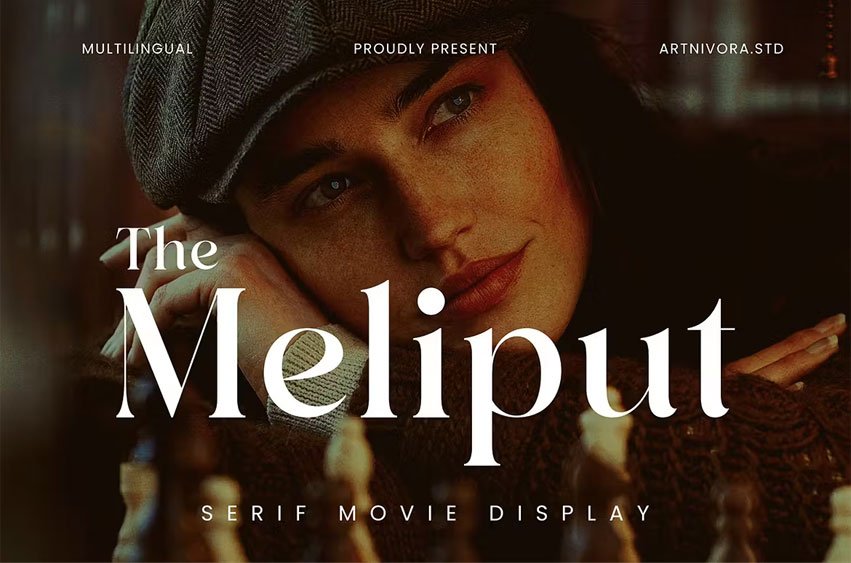
The Meliput Font is a simple, serif font. So perfect for you who needs a typeface for logo designs, magazines, social media, brochures, and many more.